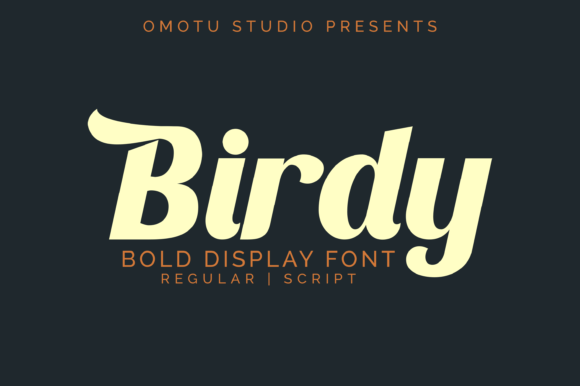
The Birdy Font: A Bold and Beautiful Addition to Your Design Arsenal
I’ll never forget the time I was working on a branding project for a new coffee shop. I had spent hours pouring over design concepts, but something was missing. That’s when I stumbled upon the Birdy font. Its bold, eye-catching letters immediately grabbed my attention, and I knew I had found the perfect fit. In this article, I’ll share my experience with the Birdy font, its features, and how to make the most of it in your designs.
An Honest Review of Birdy Font
• ✨ Bold and attention-grabbing: The Birdy font is perfect for headings, titles, and logotypes that need to make a statement.
• ✅ Versatile: It comes in two styles, regular and script, making it suitable for a wide range of design projects.
• 🎉 Easy to read: Despite its boldness, the font remains clear and legible, even at smaller sizes.
While the Birdy font is an excellent choice for many design projects, there are a few things to keep in mind:
• 🤔 Limited use in body text: Due to its boldness, the Birdy font may not be the best choice for lengthy paragraphs or body text.
The Story Behind Birdy Font
The Birdy font was designed with the goal of creating a bold and eye-catching typeface that would stand out in any design. Inspired by the world of birds, the designer aimed to capture the freedom and creativity that comes with flight. The result is a font that is both beautiful and functional.
Q: Is Birdy font suitable for body text?
A: While the Birdy font is legible, its boldness makes it more suitable for headings and titles. For body text, a lighter font may be more suitable.